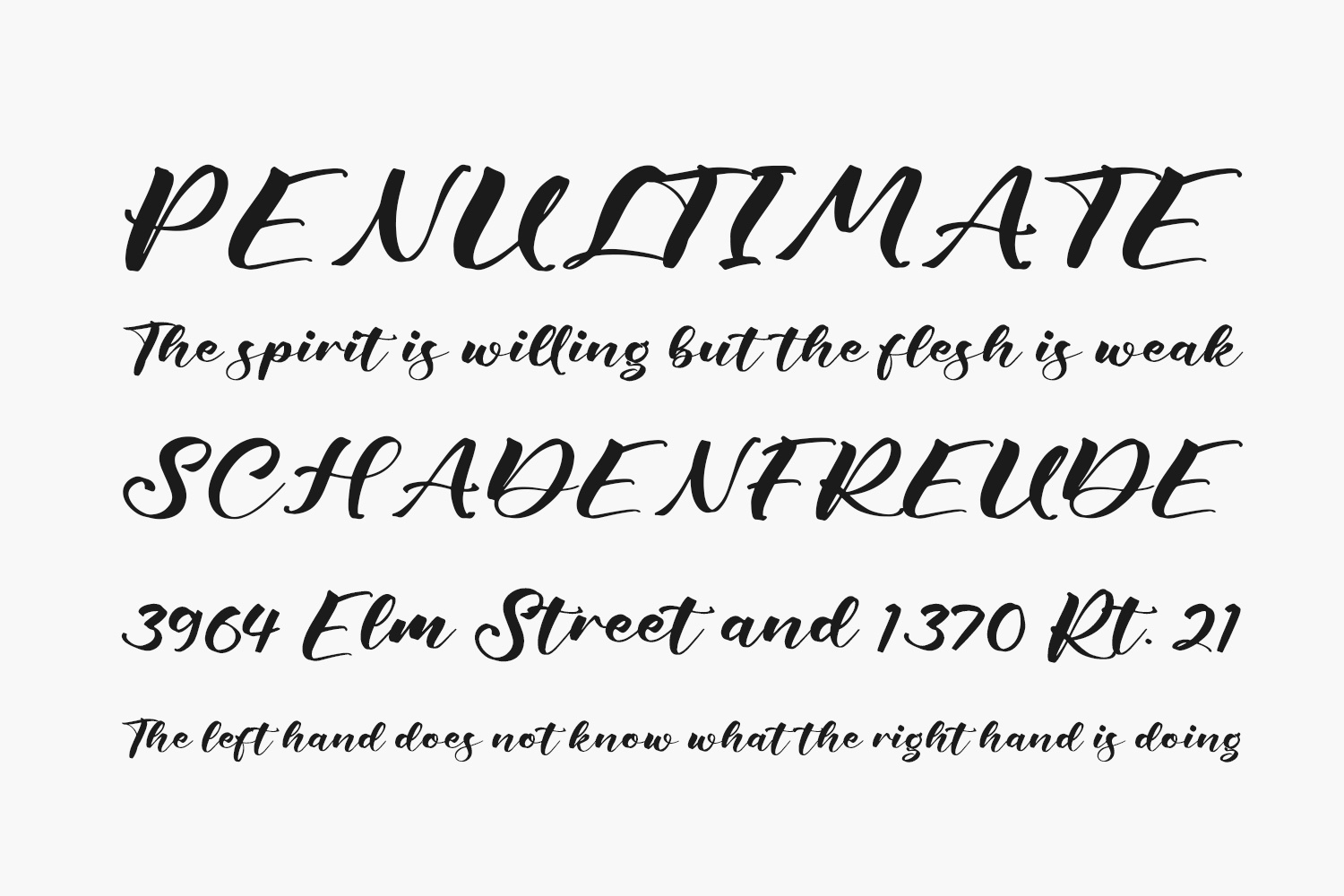
Calistelo Delisha is a graceful and elegant calligraphic font designed by Letterena Studios to bring sophistication and charm to your creative projects. With its flowing strokes, soft curves, and delicate swashes, this free script font is perfect for crafting romantic logos, stylish invitations, and artistic social media graphics. Available in OTF format with support for Latin characters, Calistelo Delisha is ideal for designers seeking a luxurious handwritten font for branding, packaging, or editorial use.
Why Choose Calistelo Delisha?
- Elegant Calligraphic Style: Mimics hand-drawn lettering for a refined, feminine look.
- Ideal for Luxury Branding: Perfect for fashion labels, beauty brands, and boutique identities.
Where to Use Calistelo Delisha?
Calistelo Delisha shines across a variety of design applications:
- Wedding Invitations: Adds a romantic, personalized touch to stationery sets and RSVP cards.
- Fashion & Beauty Logos: Creates memorable brand identities for luxury labels and cosmetic packaging.
- Social Media Quotes: Beautifully styled for Instagram Stories, Pinterest pins, and TikTok overlays.
- Editorial Headers: Stands out in blog headers, magazine covers, and advertising campaigns.
- Packaging Design: Perfect for product labels on perfumes, handmade crafts, or artisanal goods.
Design Tips with Calistelo Delisha
To maximize the elegance of Calistelo Delisha, pair it with clean sans-serif fonts like Avergent or Forgotten Futurist for contrast and readability. Use this font at large sizes to highlight its expressive strokes and fluidity. For digital use, apply it to short, meaningful phrases over pastel or floral backgrounds to enhance its romantic appeal. Try our interactive font preview tool below to test Calistelo Delisha with your own text before downloading!